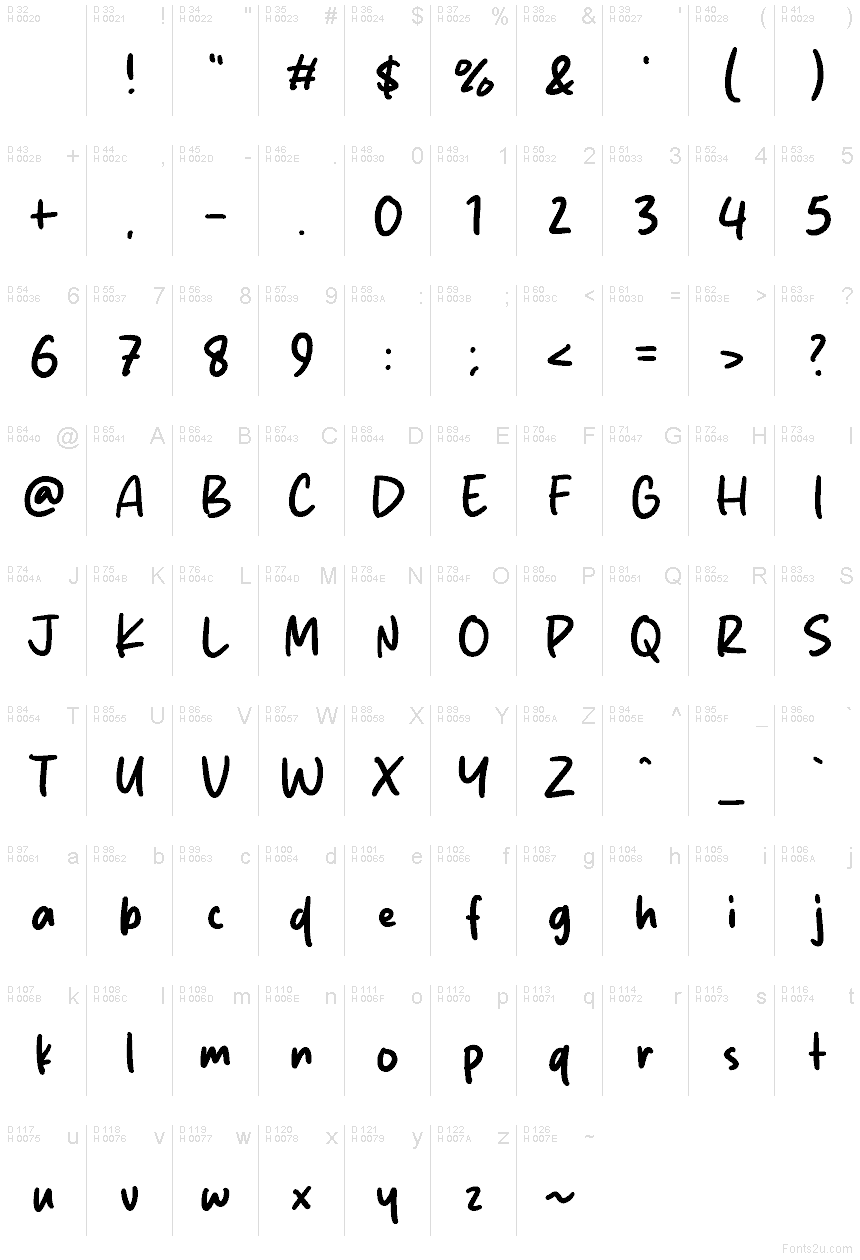
Sunday Walk
Sunday Walk font, a meticulous creation by MJType, injects an enlightening element into its design form for wondrous display. The sleek and balanced letters are nonchalant and easygoing. This handwritten font comes with flawless characters and a casual mood that smoothly take on unfair advantage against competing fonts in contemporary applications.
Decorate casual posters, creative blog titles, merchandise tags, letterheads, bookmarks, comics speech bubbles, or your leather bound journals with Sunday Walk. Brands like fashion or furniture franchises will easily benefit from using it for their logos or packaging design ideas.